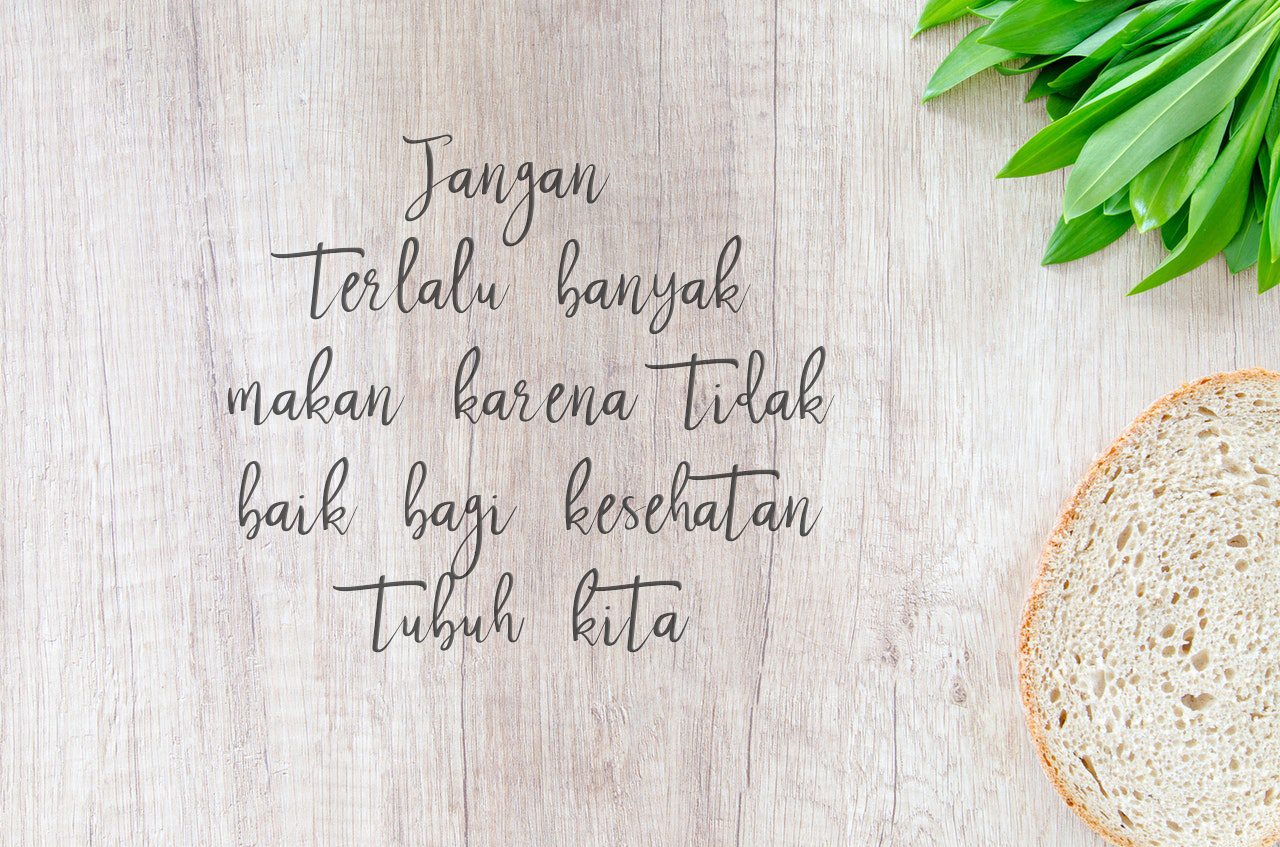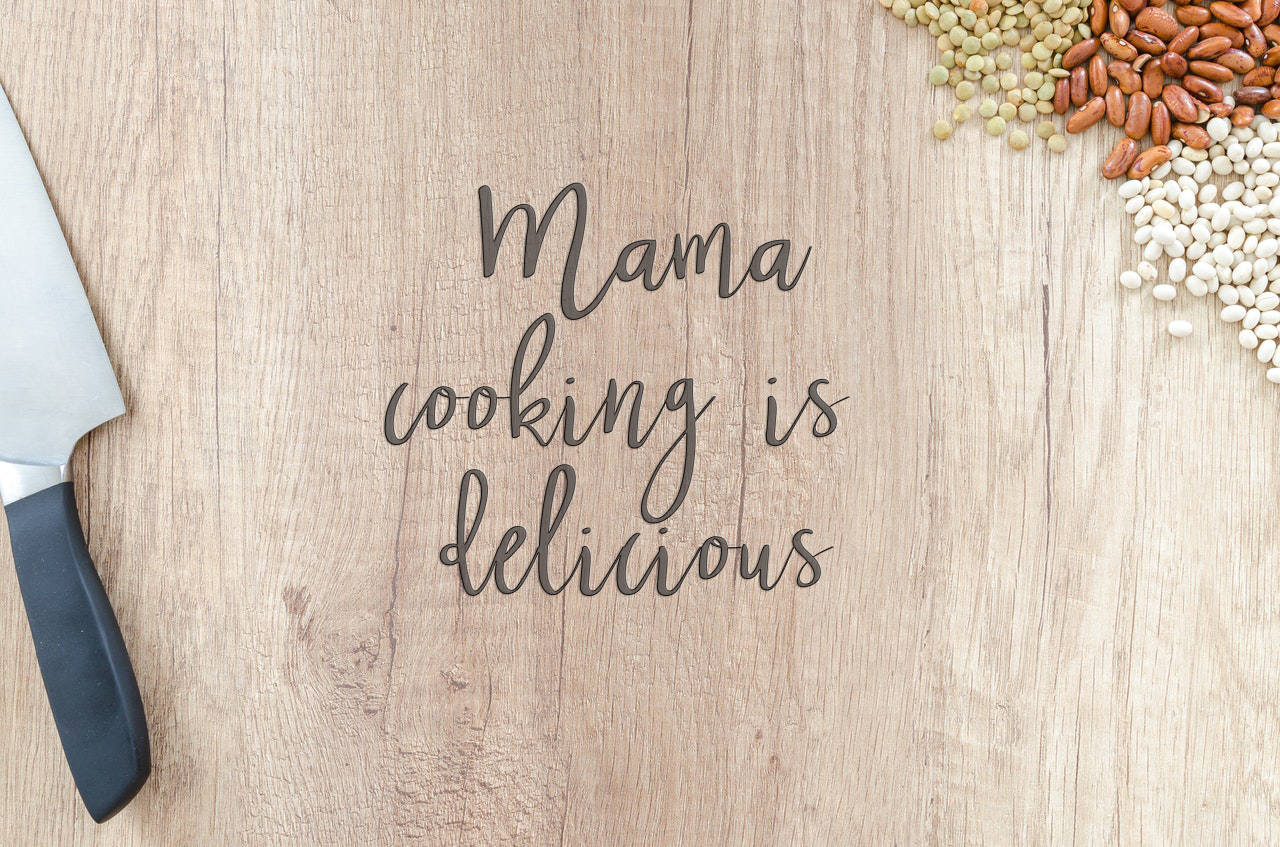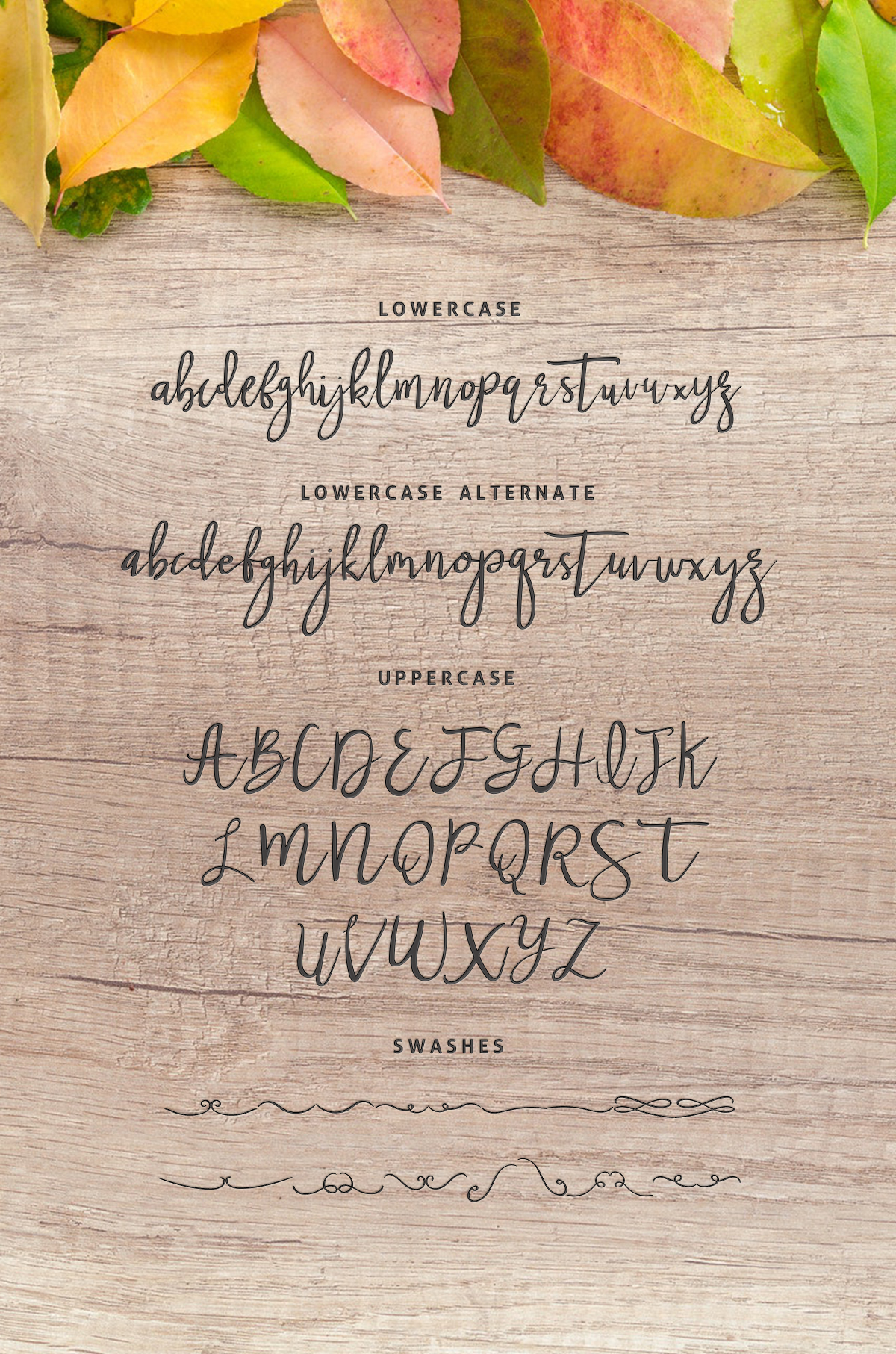
Nastar Font
About Nastar Font
Naster is a font trio that contains:
1. Nastar Script – A clean script font that includes upper & lowercase characters, numerals and more of symbols.
2. Nastar Script Alt – This is a second version of Nastar, with a completely new set of upper & lowercase characters.
3. Nastar Swash – 24 elements for creating a cute personal style.